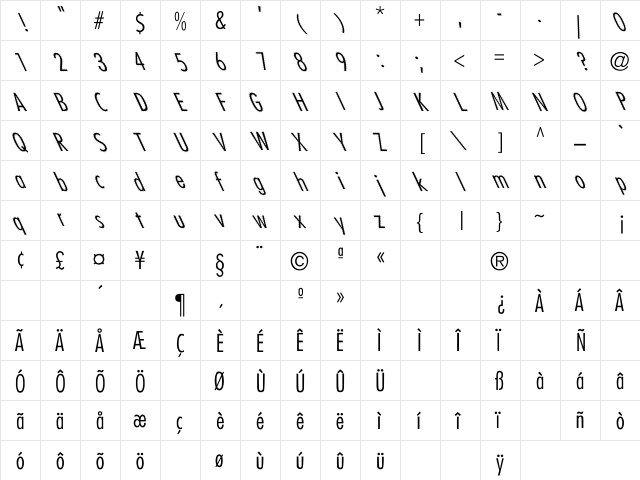
CatScratch Rev Italic Regular
Design Context for CatScratch Rev Italic Typeface
CatScratch Rev Italic offers clean, dependable letterforms without strong stylistic allegiance, making it a practical choice for designers who need flexibility. Its italic angle brings a sense of urgency and motion to the letterforms.
Pro Tip: Use CatScratch Rev Italic for emphasis, pull quotes, and subheadings where its slanted energy can add rhythm to the layout.